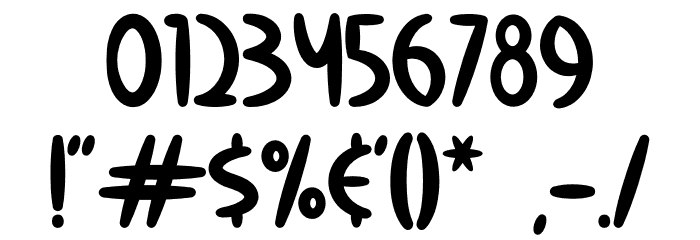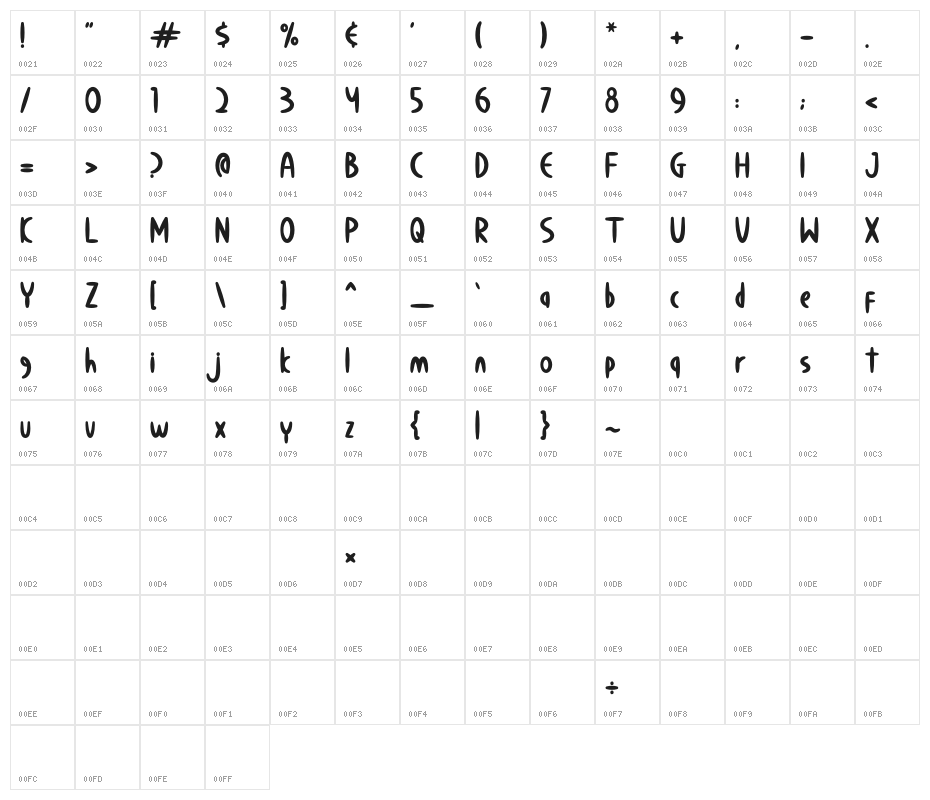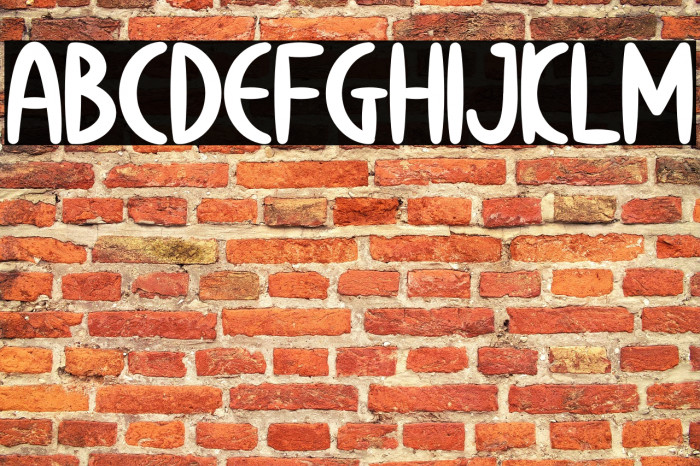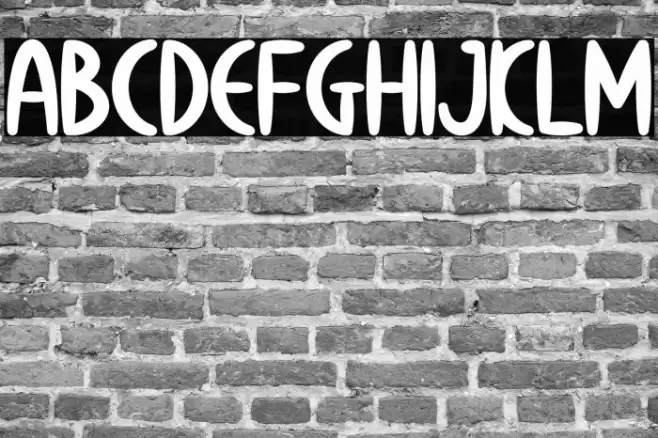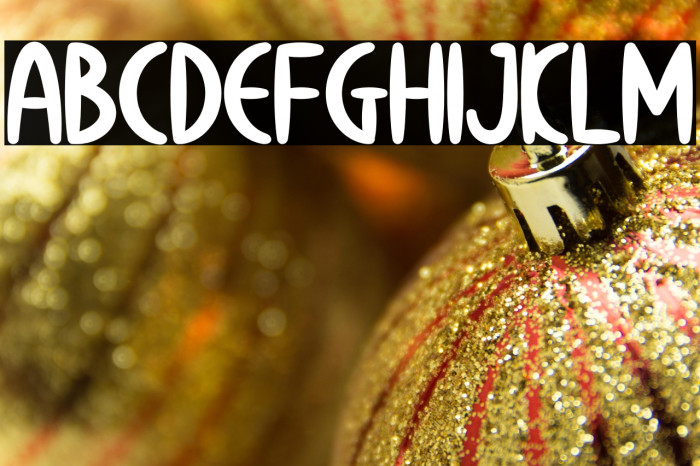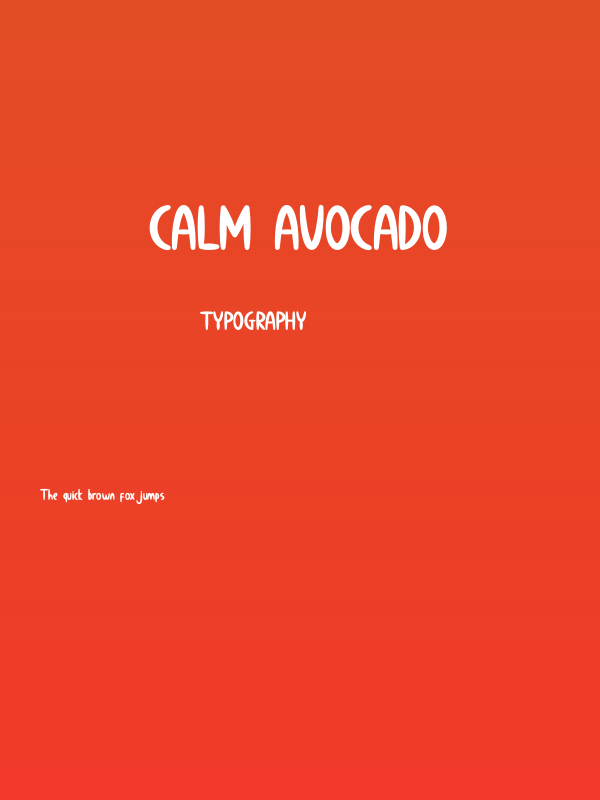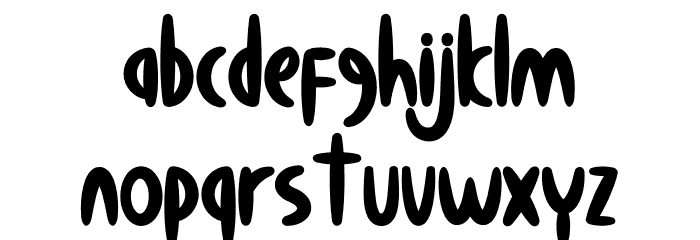
Calm Avocado Font
Calm Avocado Description
This playful and bold font features rounded, thick strokes that give it a friendly and approachable appearance. The letters are slightly irregular, adding a hand-drawn, whimsical feel. The uppercase and lowercase characters maintain a consistent style, with a smooth flow and minimal sharp angles. The numbers and special characters follow the same design principles, ensuring a cohesive look across all elements. This font is ideal for projects that require a fun and informal touch, such as children's books, playful branding, or casual social media graphics.
| Proposed Projects | Children's books, playful branding, casual social media graphics. |